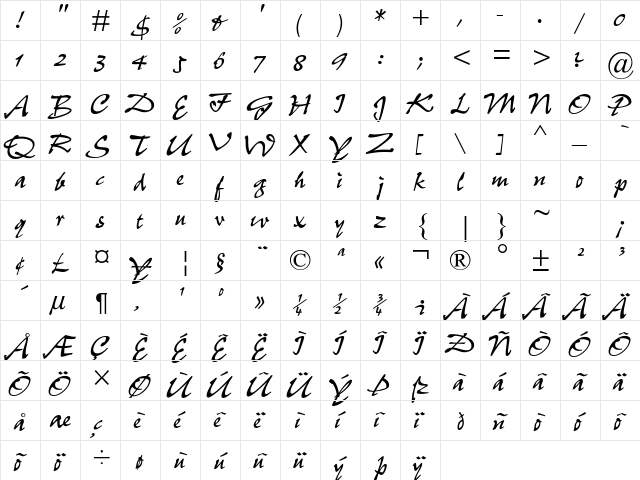
PfefferDB Normal
Design Context for PfefferDB Typeface
PfefferDB is a composed and adaptable typeface that performs quietly and consistently across a wide range of design contexts.